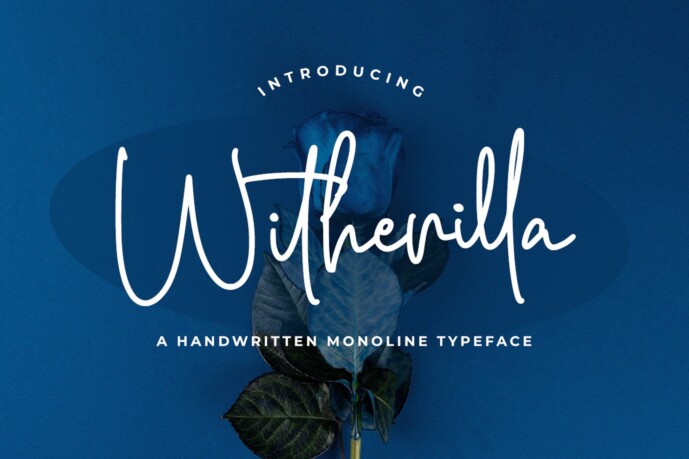
Witherilla Font
Designer: fatmastudio
Witherilla is a beautiful light handwritten font with a unique feel and a stunning impact. It will add a luxury spark to any design project that you wish to create!
• Ligatures, Swash, Alternates